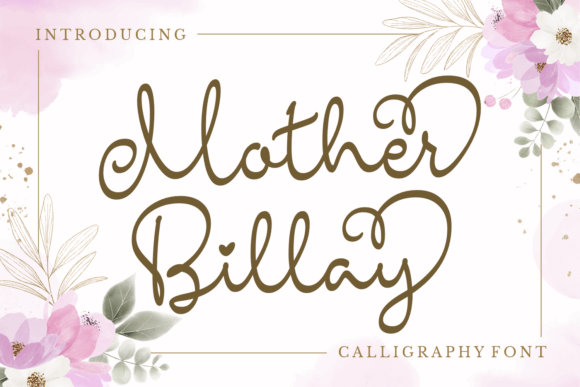
Welcome to the exquisite world of Mother Billay, a script font family that embodies the essence of elegance and creativity. Immerse yourself in its delicate curves and intricate details, crafted by the talented hands of Situjuh. Mother Billay is a symphony of flowing strokes, a visual masterpiece that adds a touch of sophistication to any project it graces.
Imagine your wedding hangers adorned with the beautiful Mother Billay font. Its elegant lines and timeless style will transform your special day into an unforgettable event. Each letter dances gracefully, capturing the joy and love of your union. Mother Billay is the perfect choice for creating personalized gifts, invitations, and signage that reflect the beauty of your love story.
With Mother Billay, the possibilities are endless. Let your imagination soar as you explore its wide range of applications. Create stunning posters, greeting cards, logos, and branding materials that stand out from the crowd. Mother Billay's unique character adds a touch of charm and personality to any design, making it a favorite among creative professionals.
Unleash your inner artist and embark on a creative journey with Mother Billay. Its PUA encoding makes it easy to access a world of amazing glyphs and ligatures, allowing you to add intricate details and flourishes to your designs. Whether you're a seasoned designer or just starting out, Mother Billay is the perfect font to elevate your work and leave a lasting impression.